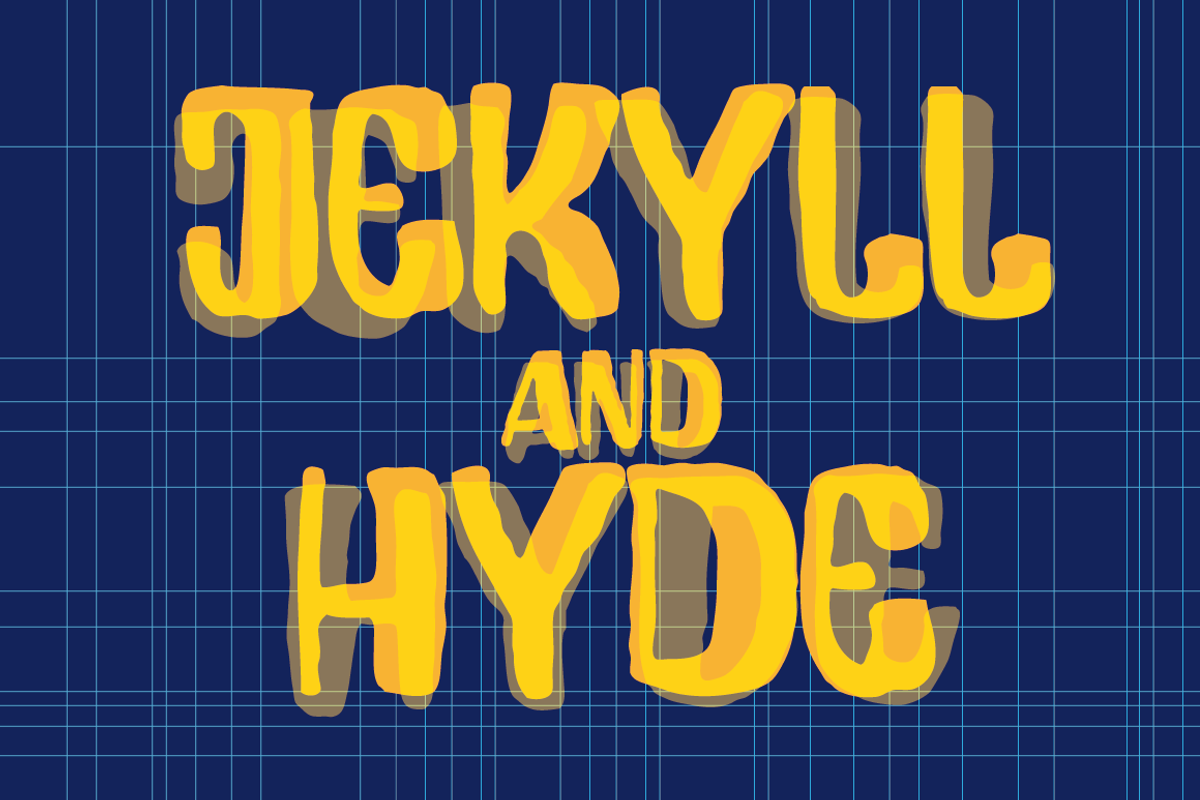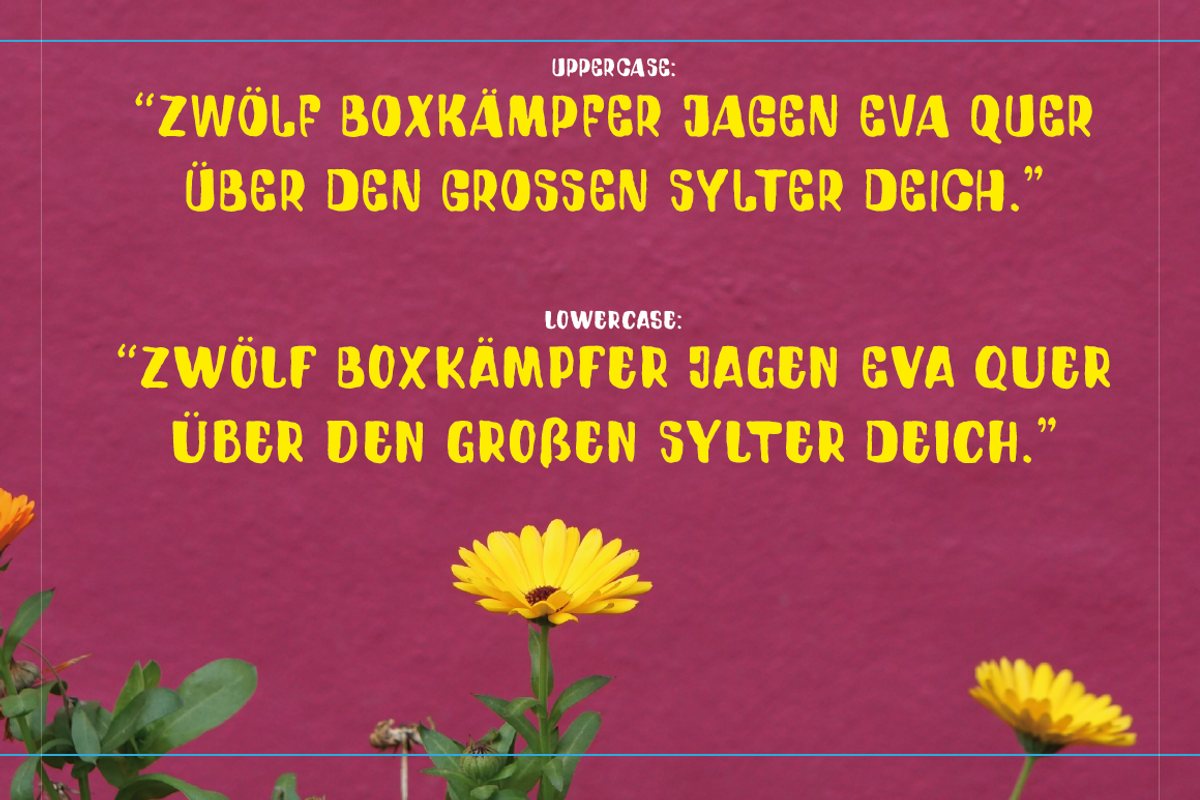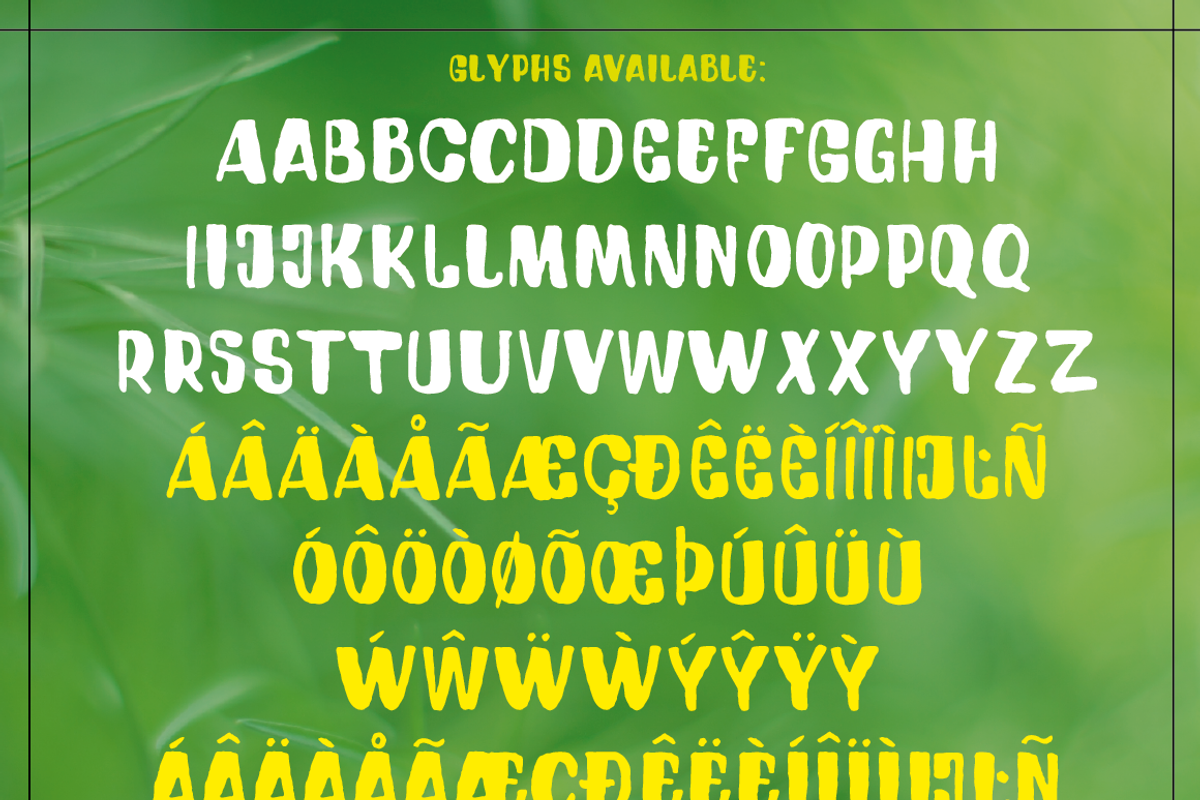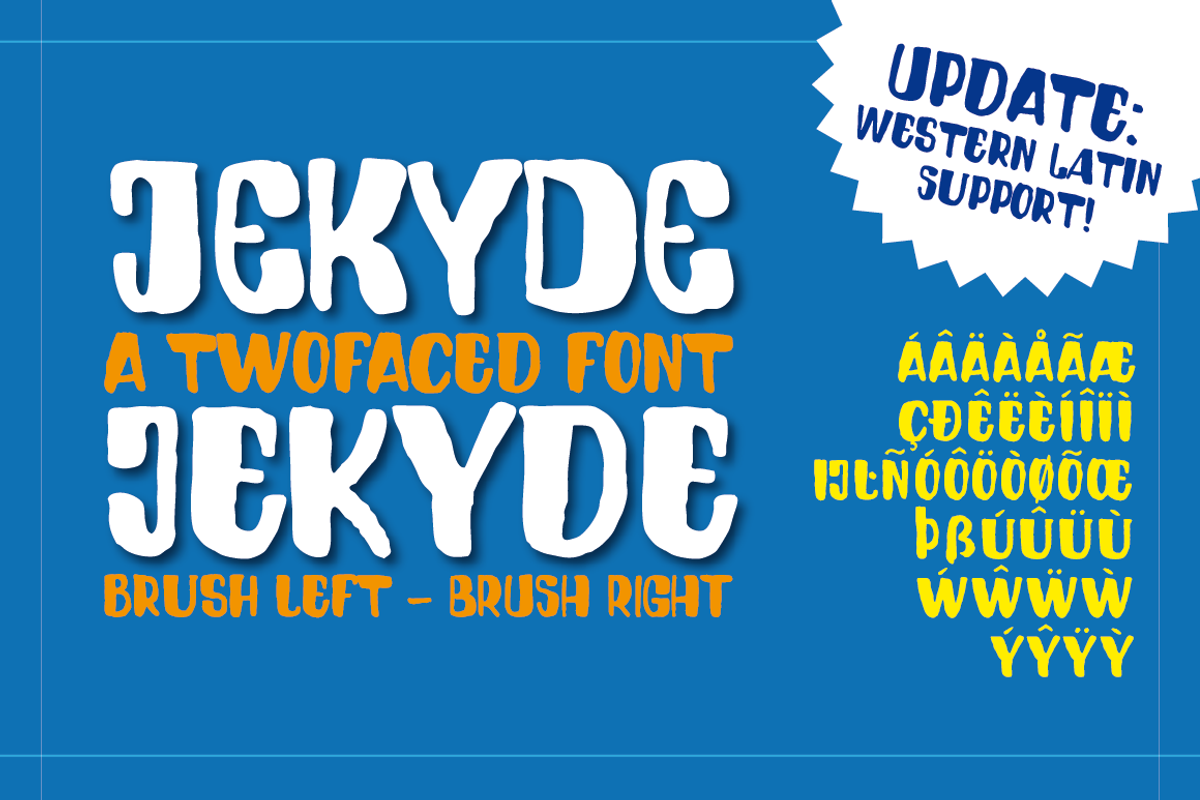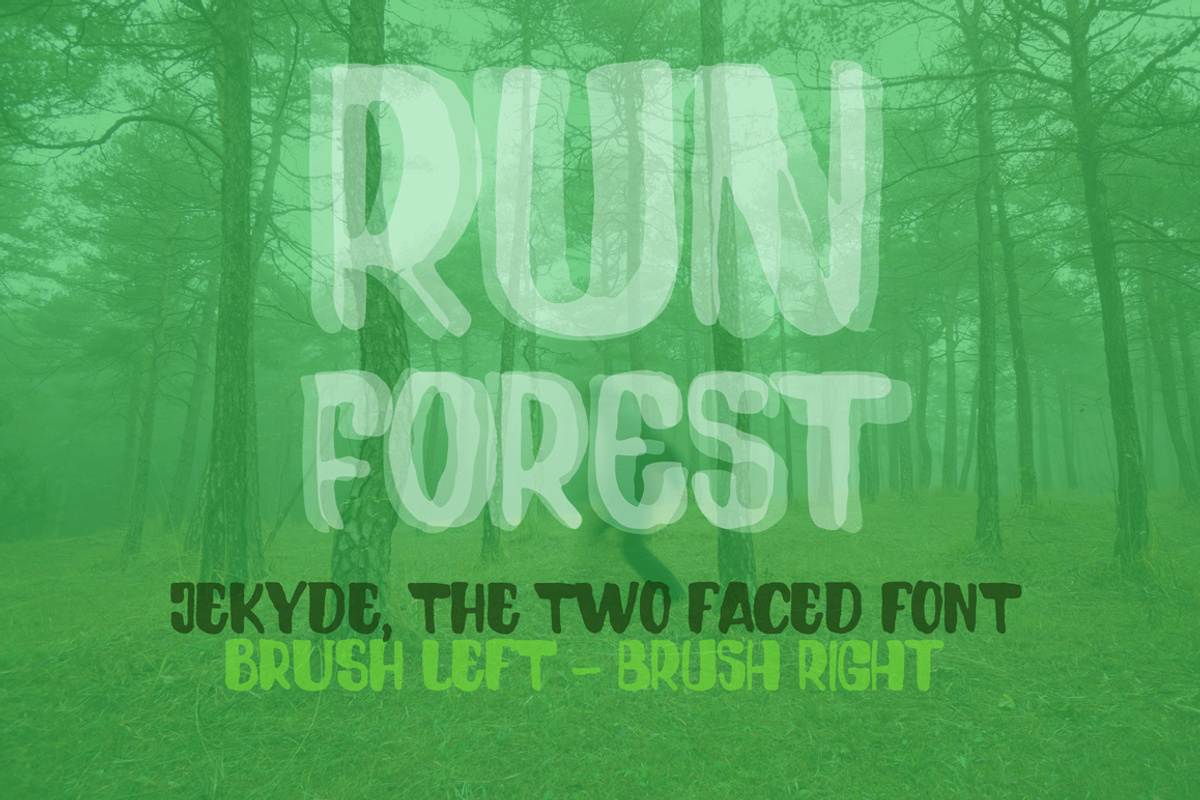
Jekyde Bold
Jekyde Bold by Fonts by ateliervonau is a font selected for branding, posters, packaging, typography.
- This handmade font totally ignores the rules of typography and so the letters are sorted right brushed (uppercase) and left brushed (lowerca
Why Jekyde Bold is worth a look
Jekyde Bold by Fonts by ateliervonau fits naturally into Branding, posters, packaging, typography.